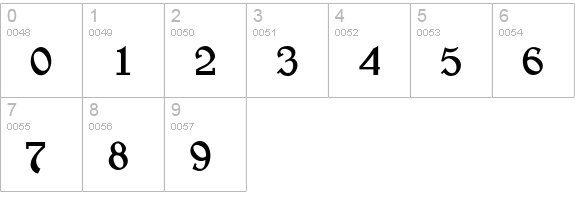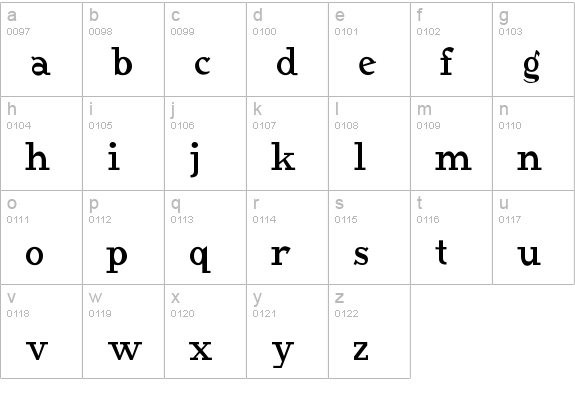
SafranBold Font Details
Introducing SafranBold, a captivating and versatile font that embodies the essence of boldness and elegance. With its strong, confident curves and striking presence, SafranBold commands attention and leaves a lasting impression. This font is the perfect choice for designers and creatives who seek a typeface that can truly make a statement. Whether used in logos, headlines, or editorial layouts, SafranBold exudes a sense of power and sophistication that elevates any design project. What makes SafranBold even more appealing is that it is freely available to download at FontsMarket.com. This means that you can unleash your creativity and bring your vision to life without any financial constraints. Now, you can experience the beauty and impact of SafranBold without having to worry about breaking the bank. With SafranBold, your designs will stand out from the crowd and make a lasting impact on your audience. Its unique combination of boldness and elegance will captivate viewers, leaving them in awe of your creativity and attention to detail. So why wait? Download SafranBold today from FontsMarket.com and embark on a design journey that is both visually stunning and financially liberating. Let SafranBold be your trusted companion as you venture into the world of design, and watch as your creations flourish and leave a lasting impression.